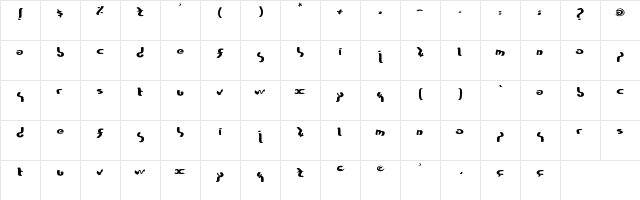
ZyxTof Bold
Design Context for ZyxTof Typeface
ZyxTof is a composed and adaptable typeface that performs quietly and consistently across a wide range of design contexts. Its bold stroke weight gives it real presence on the page.